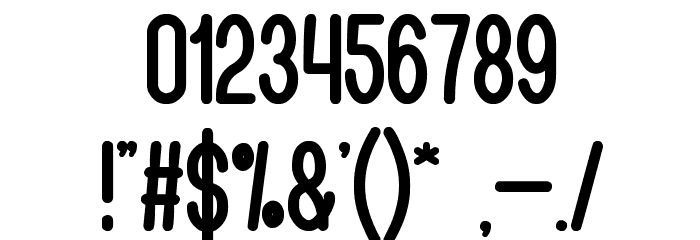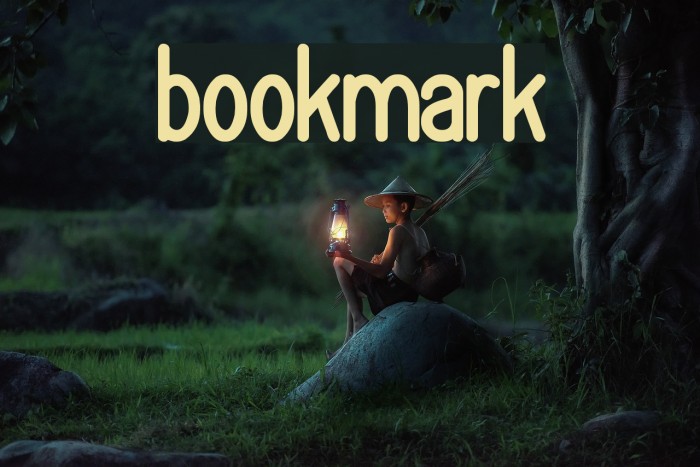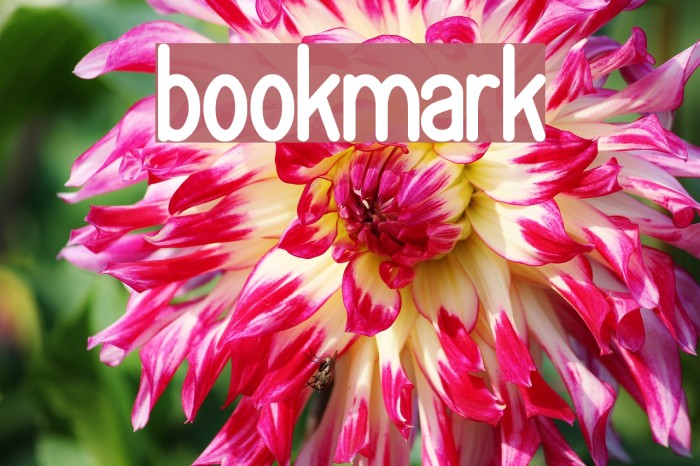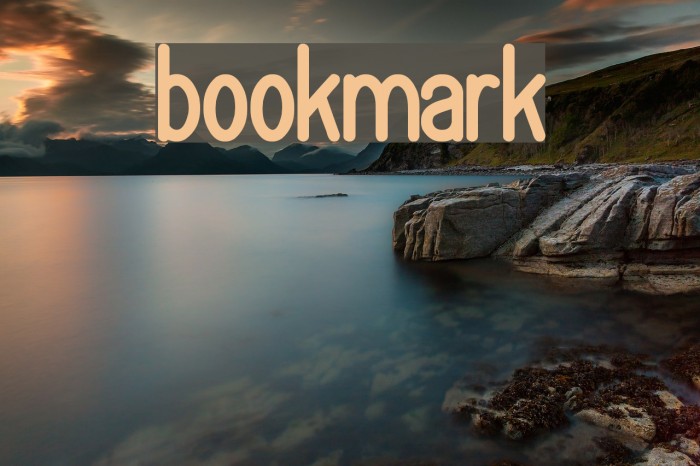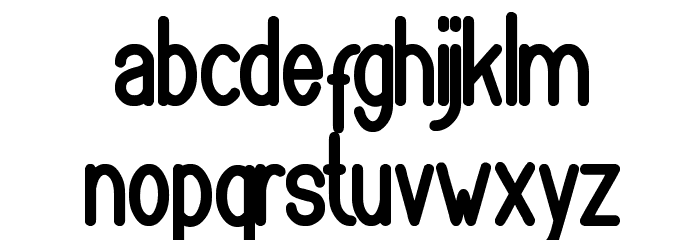
bookmark
This font features a rounded, geometric sans-serif style with uniform stroke widths, giving it a clean and modern appearance. The characters are well-proportioned, with a slight softness due to the rounded edges, making it approachable and friendly. The uppercase and lowercase letters maintain a consistent design, ensuring readability across different sizes. The numerals and special characters are clear and distinct, complementing the overall aesthetic. This font is versatile, suitable for a variety of design applications where a contemporary and approachable look is desired.
A rounded, geometric sans-serif font with a clean, modern look.
- Proposed Projects: Ideal for branding, digital interfaces, signage, and advertising where a modern, friendly appearance is needed.